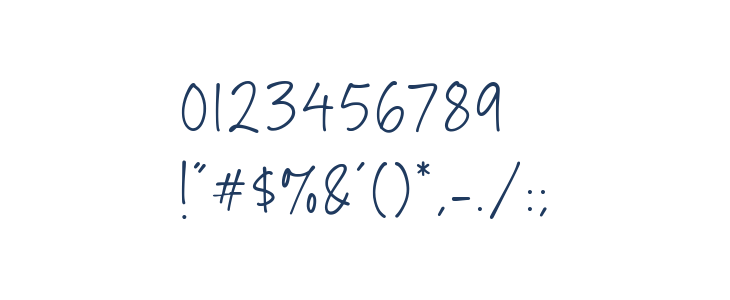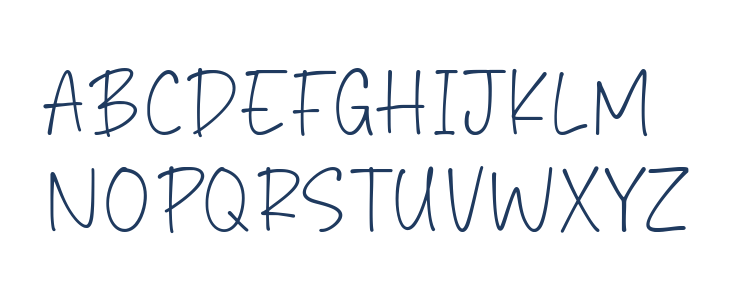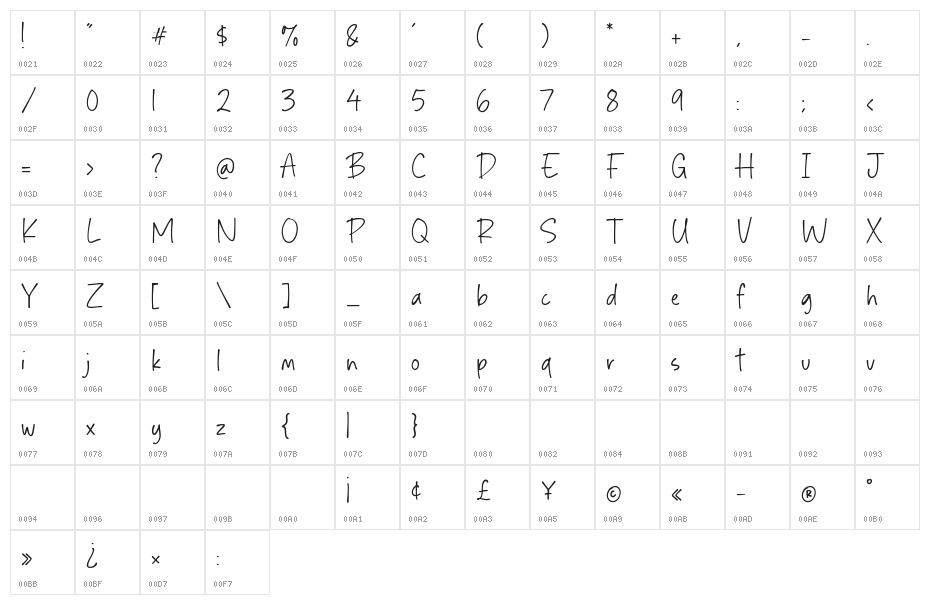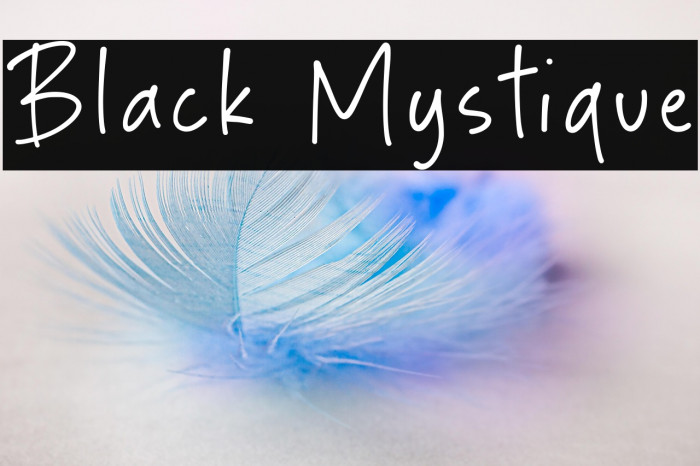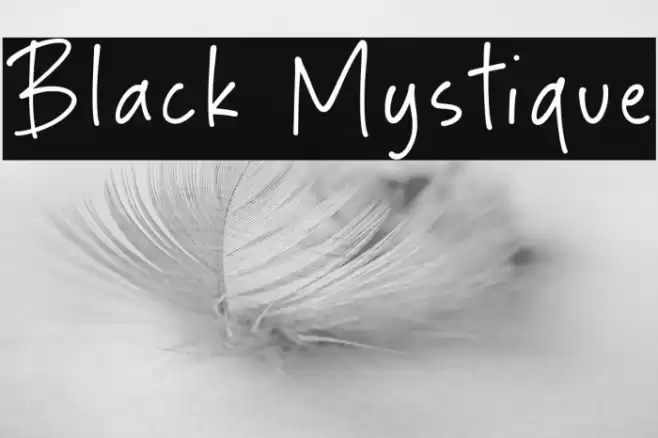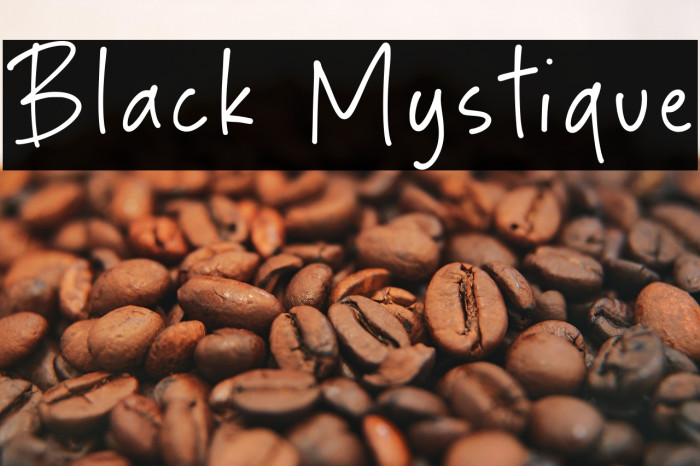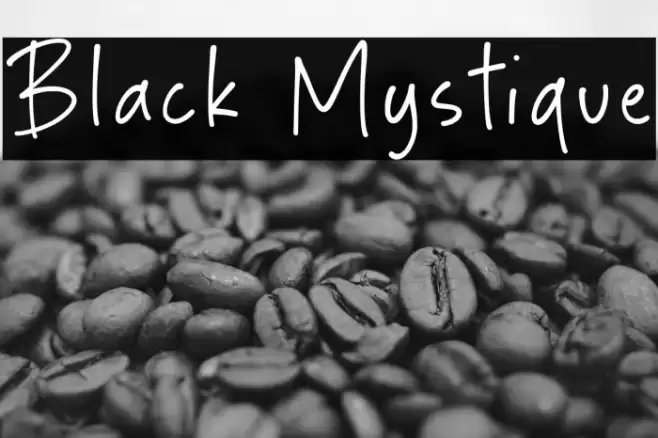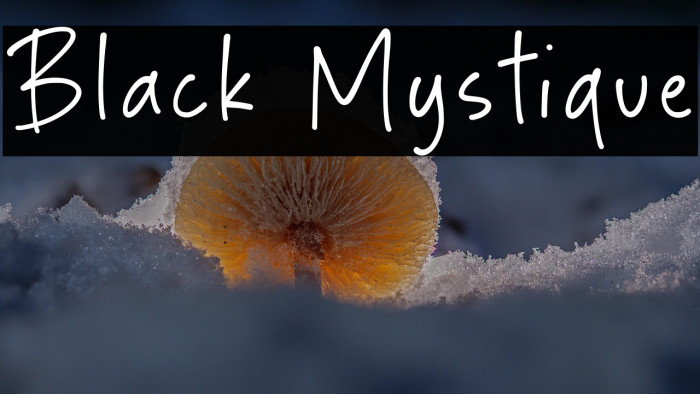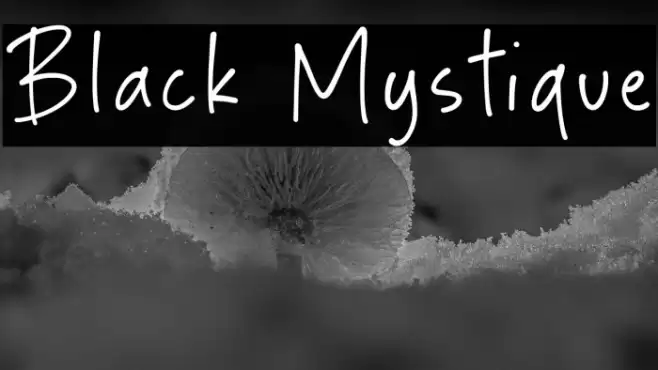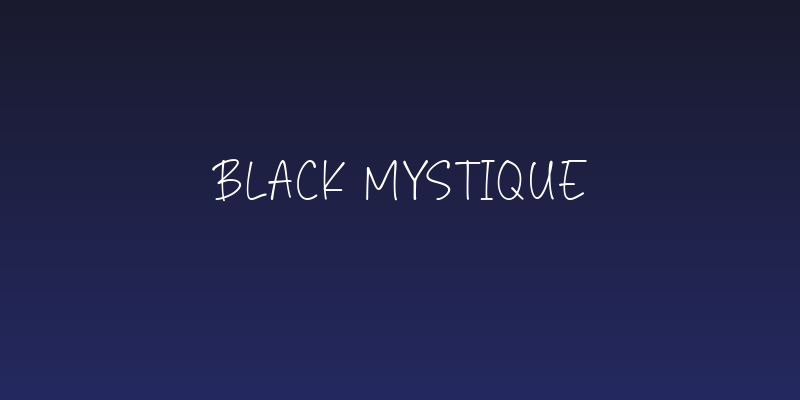
Black Mystique Font
Black Mystique Description
A casual, handwritten script font with a playful and informal style, featuring slightly irregular strokes and a light, airy feel.
| Overall Style | Casual, Playful, Informal |
| Use Case | Personal projects, casual branding, creative designs, notes, invitations. |